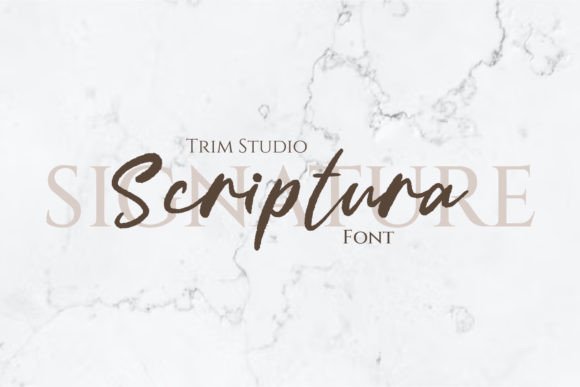
Looking for the best fonts for cover letter that can make your job application stand out? Look no further than Scriptura Font, created by the talented team at Trim Studio. This simple script font is perfect for adding an elegant and timeless touch to your written documents.
Scriptura Font features flowing and graceful letterforms, with a cursive style that adds a touch of sophistication to any project. Its smooth and cohesive look is achieved through natural connections between each letter, making it a great choice for those looking to add a personal touch to their writing.
But what really sets Scriptura Font apart is its versatility. This font is PUA encoded, which means that you can easily access all of its delightful glyphs and swashes. Whether you're looking to add a subtle flourish to your resume or create a striking header for your cover letter, Scriptura Font has everything you need to make your writing pop.